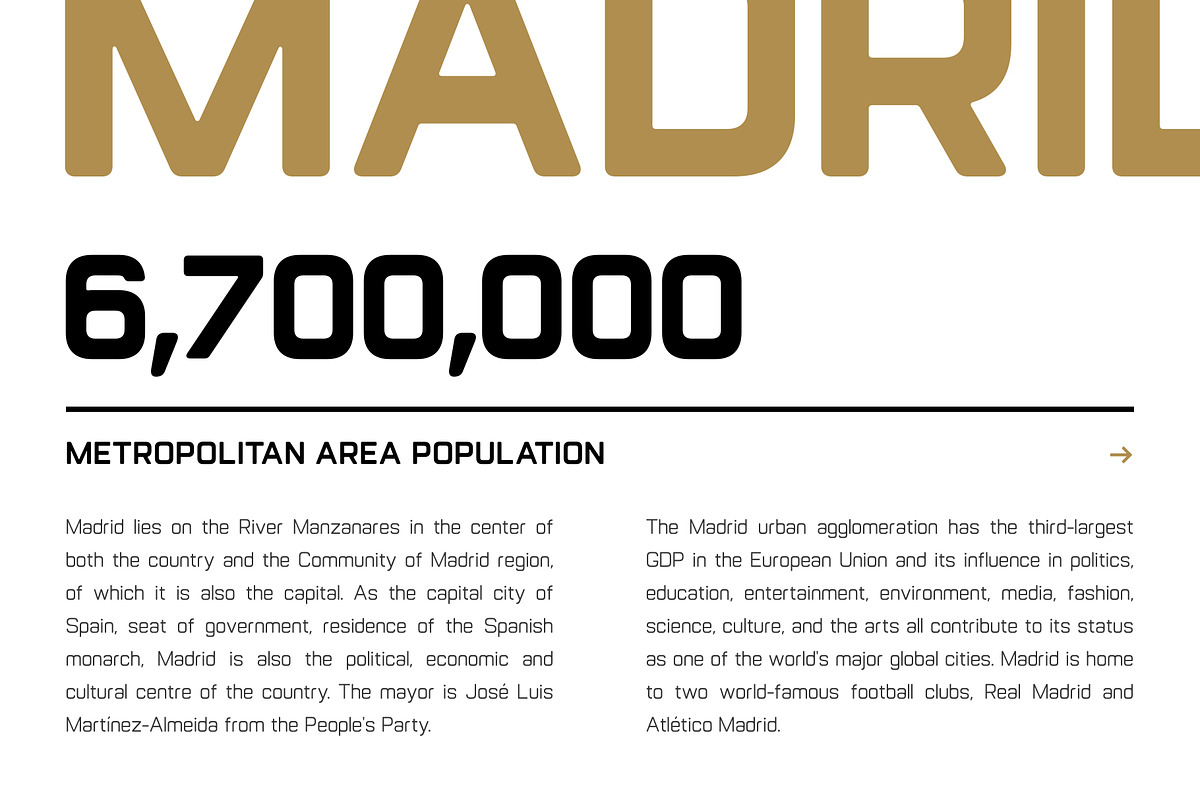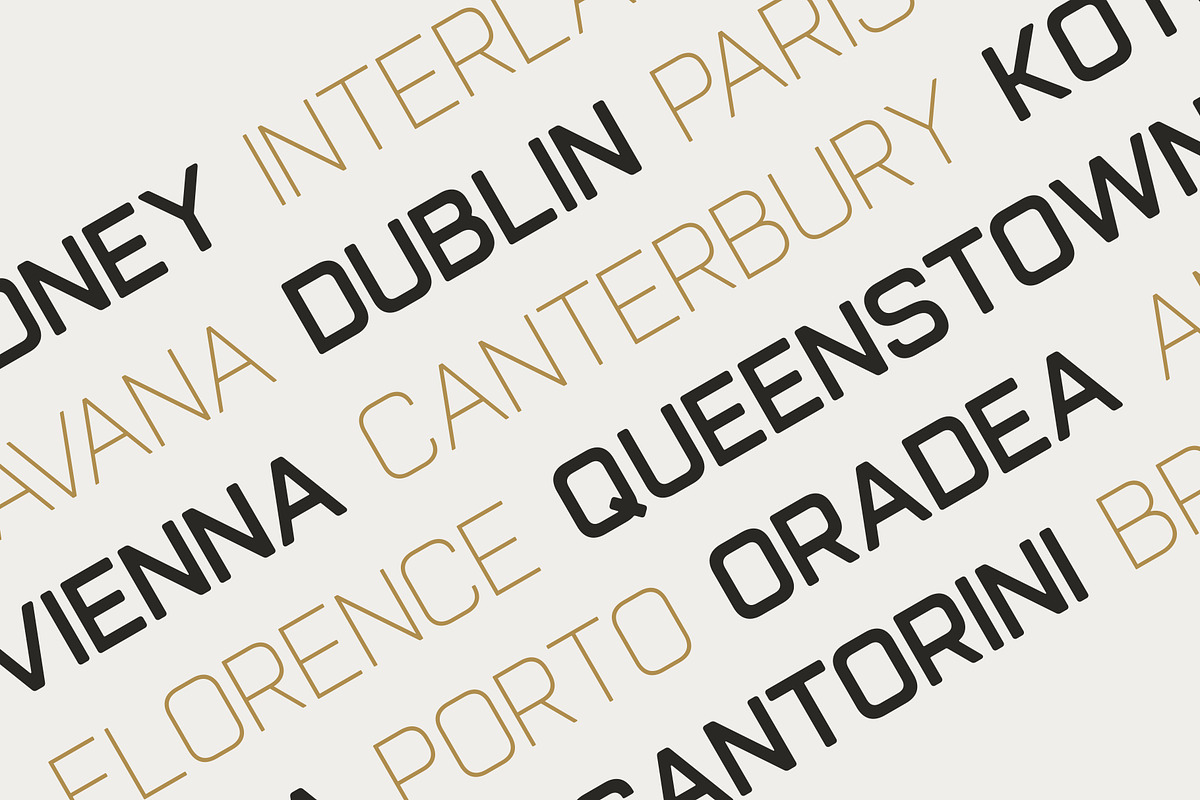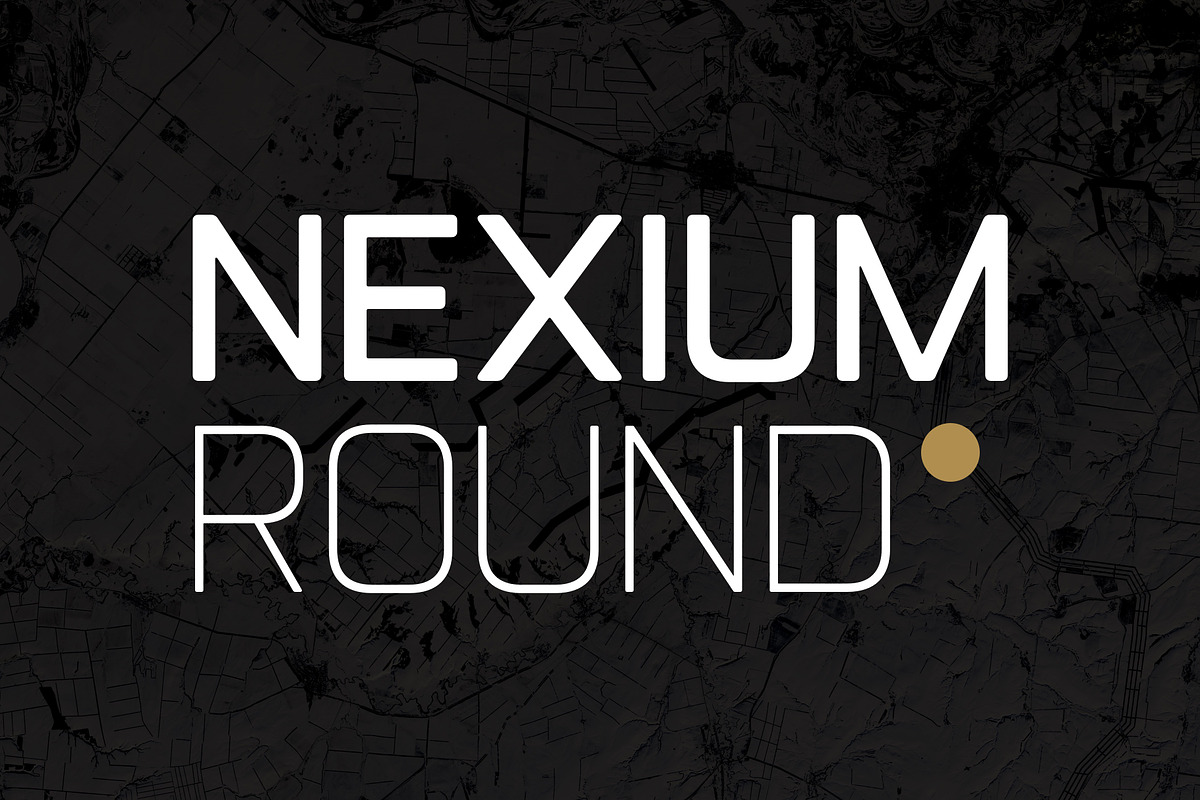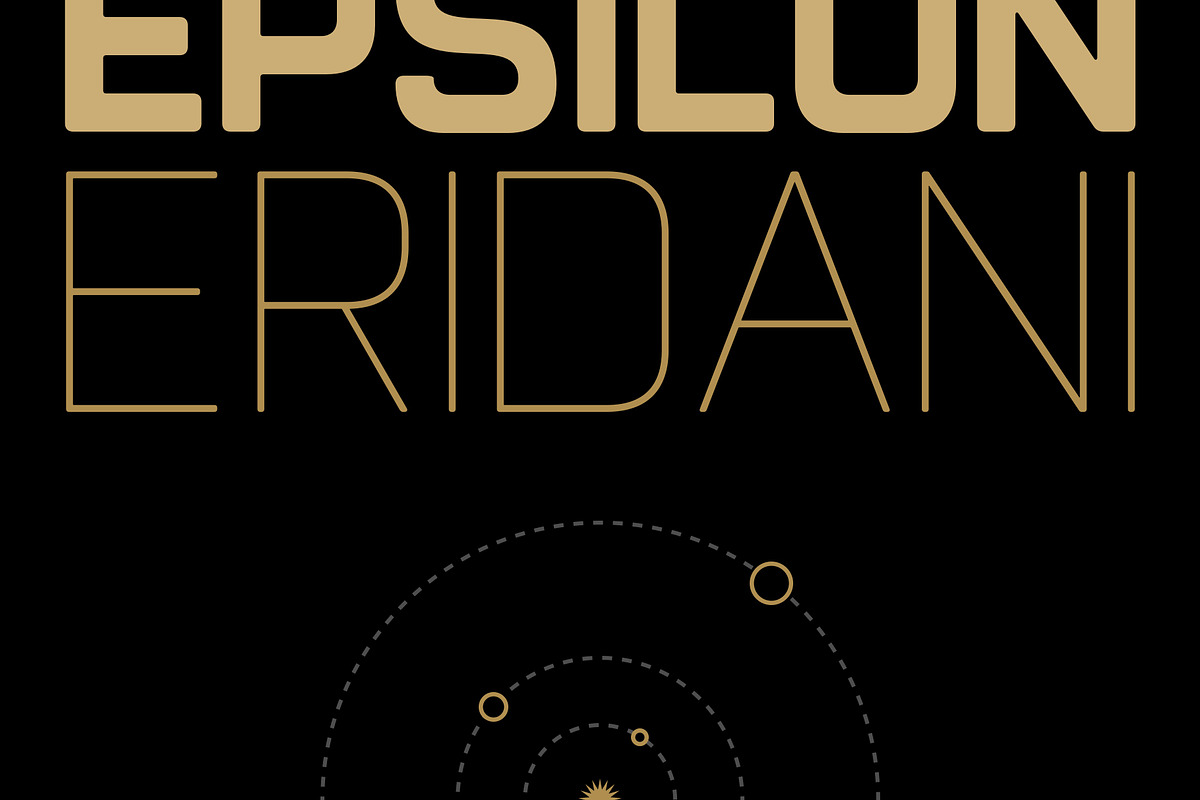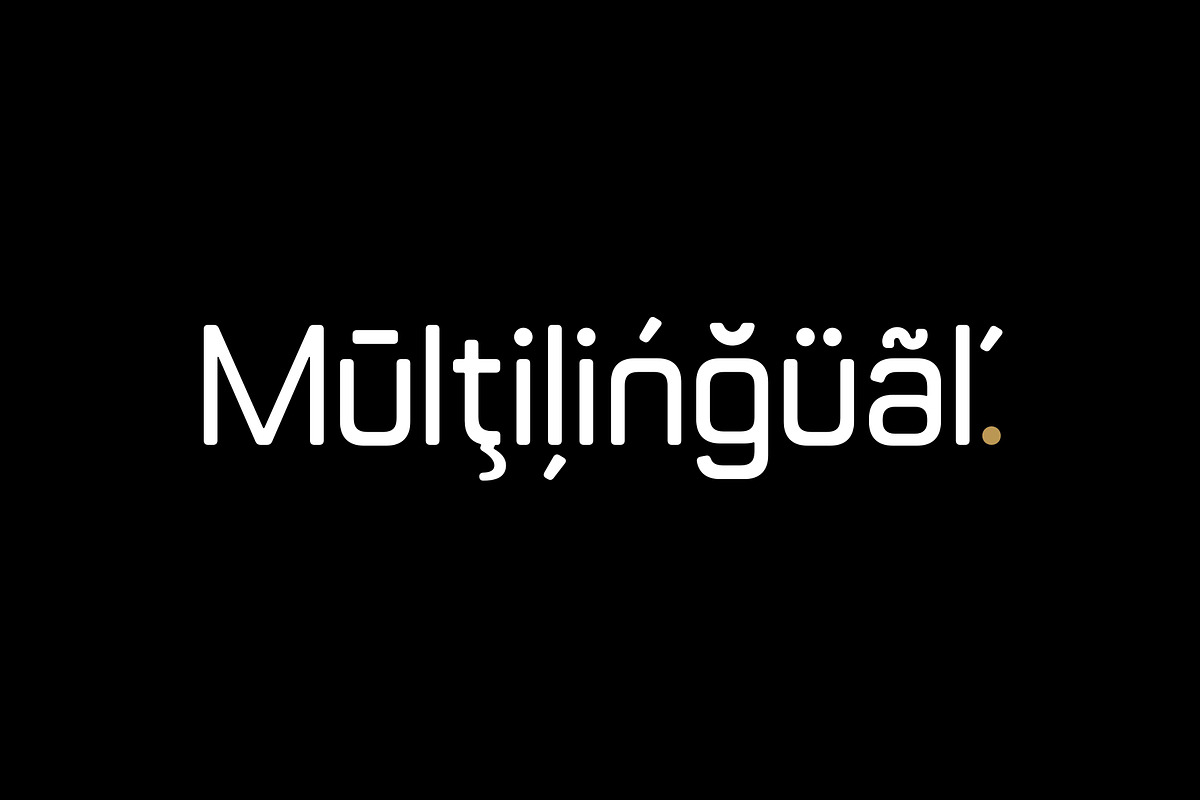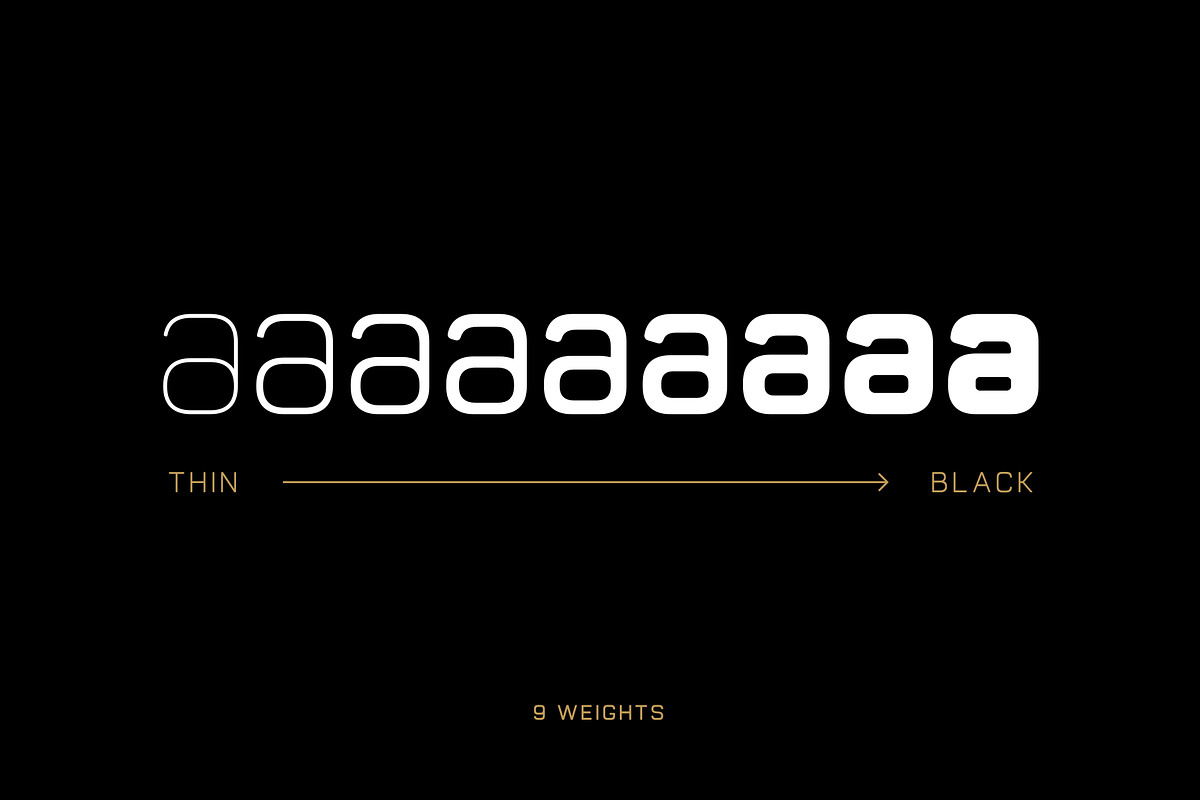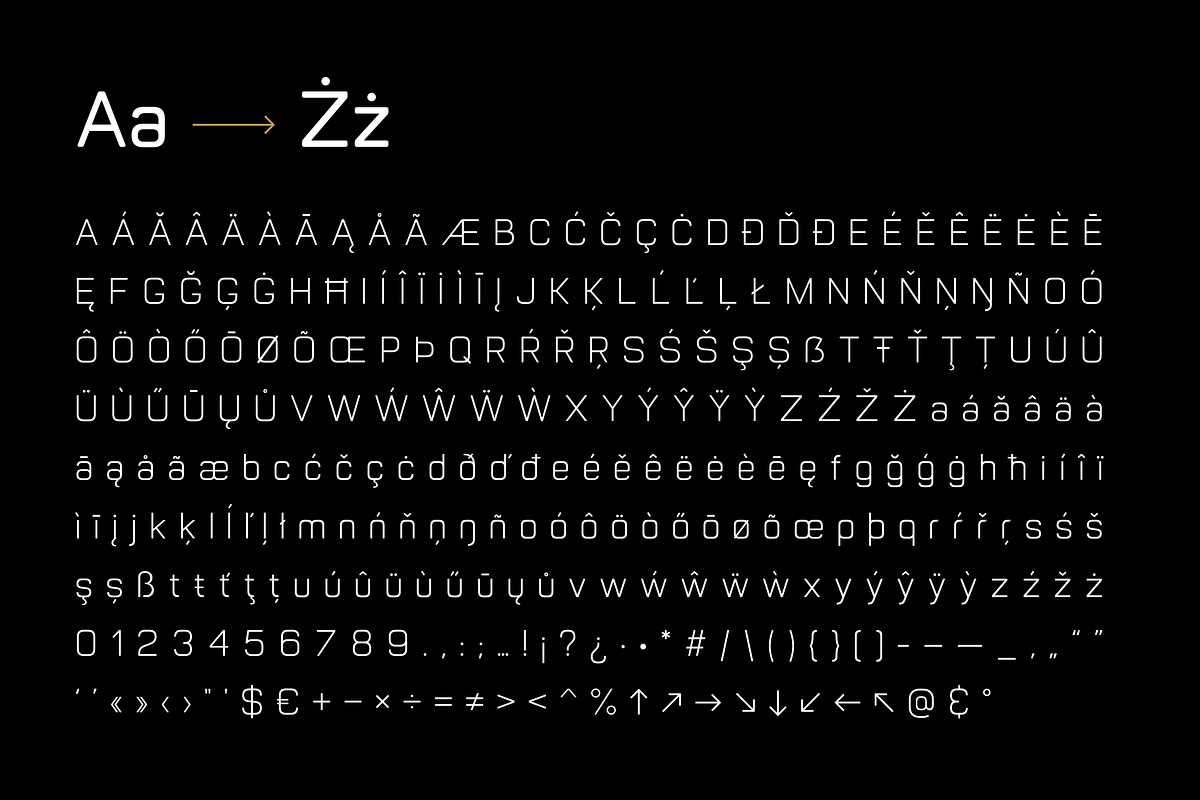
Nexium Round - Sci-Fi Inspired Sans
Nexium Round is a sans serif typeface family. Rounded and almost mono-line design of the typeface highly inspired by science fiction. 9 font weights available from Thin to Black.
- 9 fonts (Thin, ExtraLight, Light, Regular, Medium, SemiBold, Bold, ExtraBold, Black)
- Numerals and punctuation
- Minimal set of math symbols
- Multiple languages support (Basic Latin, Western European, Central European, South Eastern European)